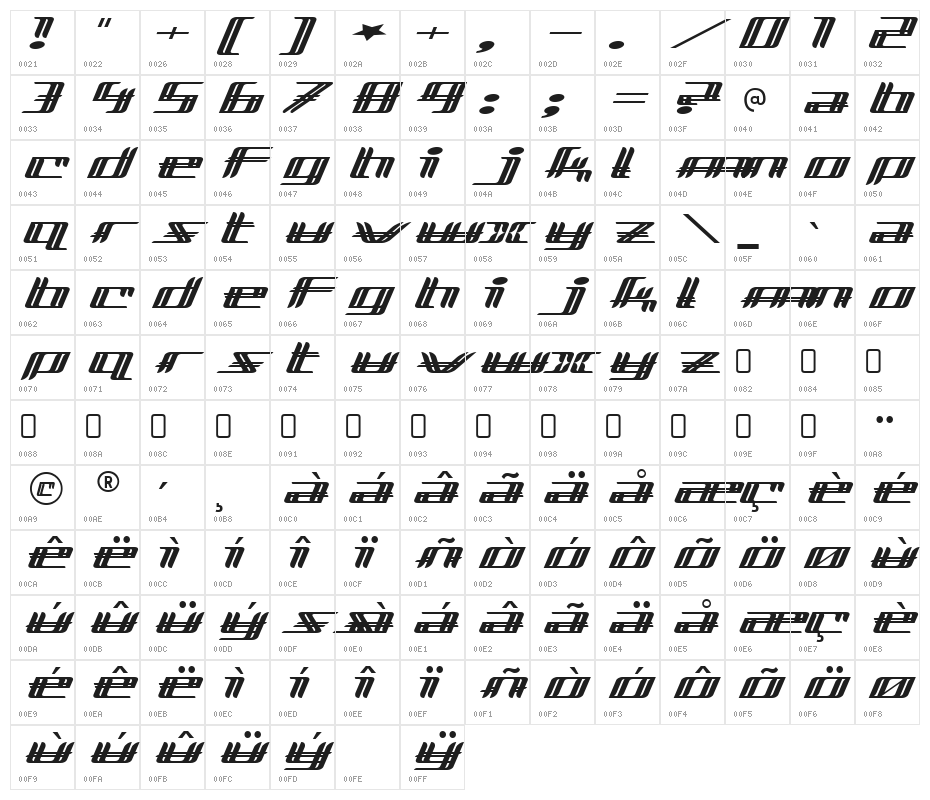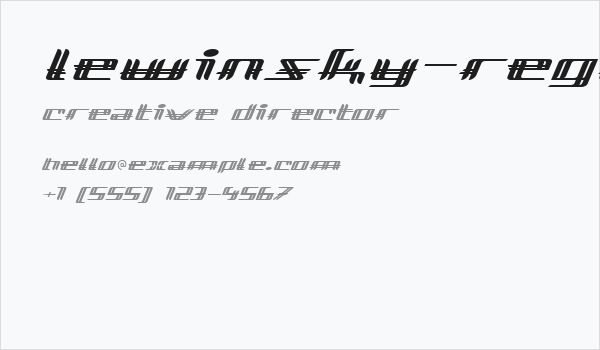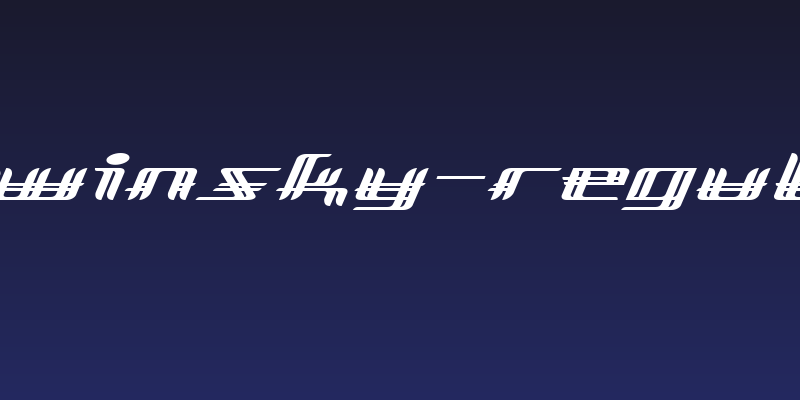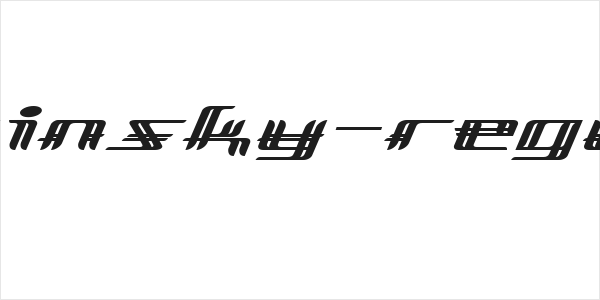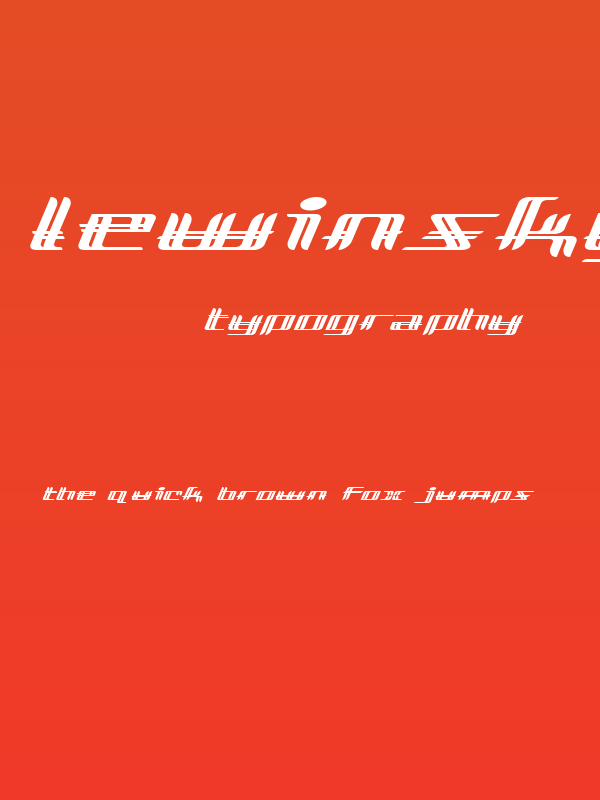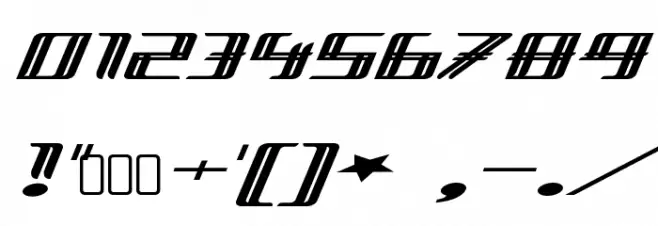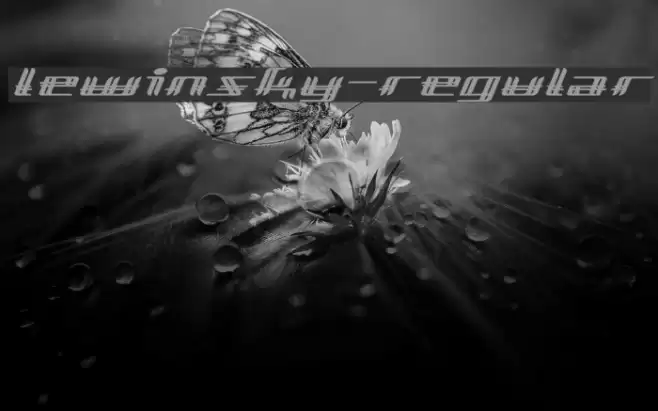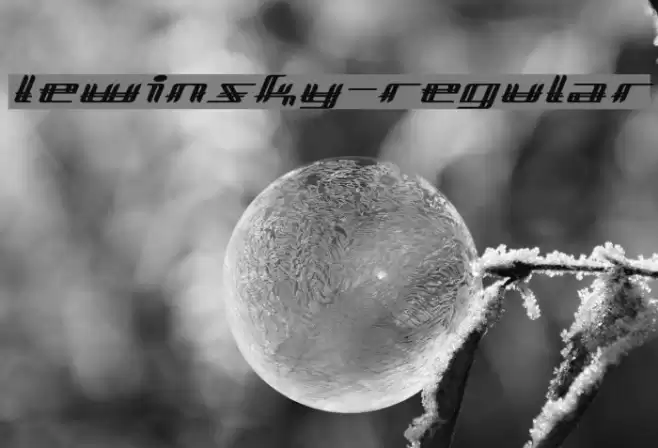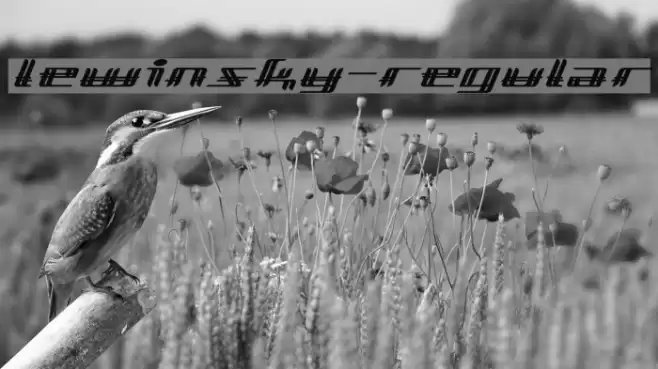
Lewinsky-Regular Font
Lewinsky-Regular Description
This font features a unique, futuristic design with a distinct slant, giving it a dynamic and energetic appearance. The characters are composed of bold, angular lines with sharp edges, creating a sense of movement and speed. The uppercase and lowercase letters maintain a consistent style, with the lowercase letters slightly more condensed. Numbers and special characters follow the same angular and slanted design, ensuring uniformity across all glyphs. The overall aesthetic is modern and edgy, making it suitable for projects that require a bold statement.
| Proposed Projects | Ideal for sci-fi themed designs, video game graphics, tech branding, and modern posters. |